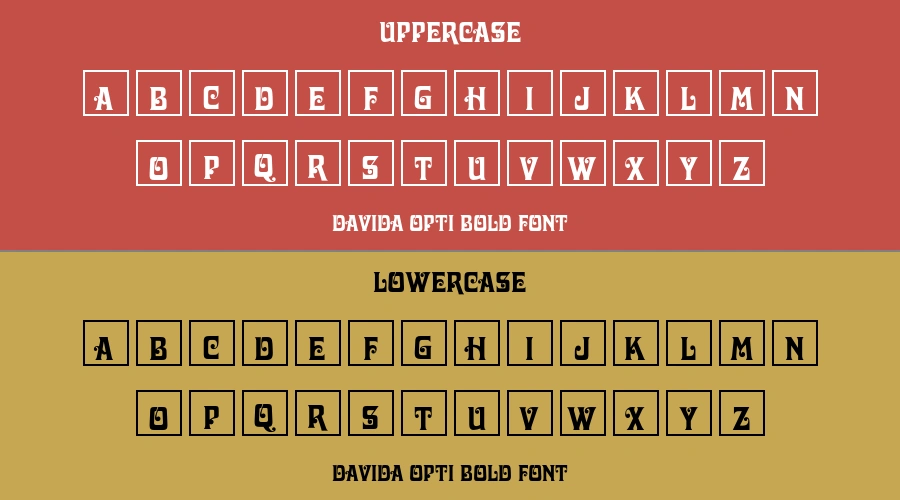
About Davida Opti Bold Font
Davida Opti Bold Font embodies typographic excellence through its masterful combination of perfect spacing and craftsmanship. Created for poster titles, this typeface delivers exceptional legibility and aesthetic excellence across all applications. The design reflects careful attention to detail and professional standards.
Advanced capabilities include distinctive assertive angles and versatile display figures, giving designers creative control. When used in campaign headers, Davida Opti Bold Font exhibits remarkable multi-language support. The harmonious balance between stroke contrast and character sets this typeface apart.